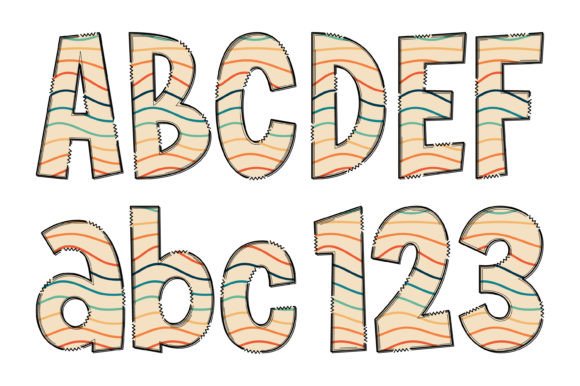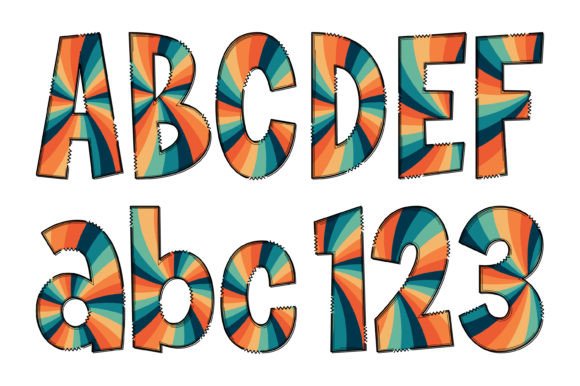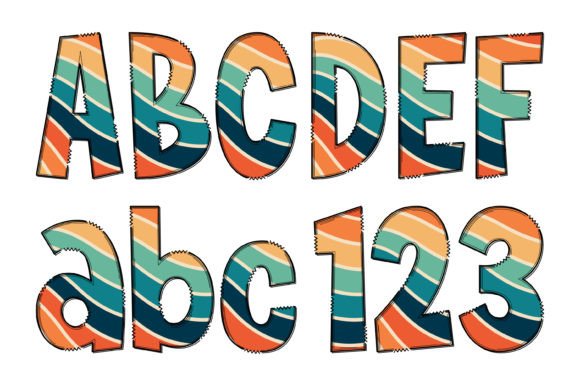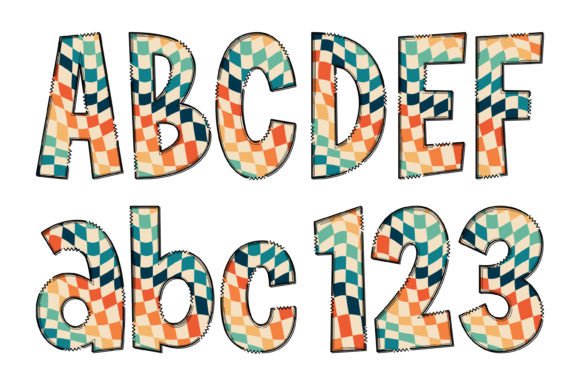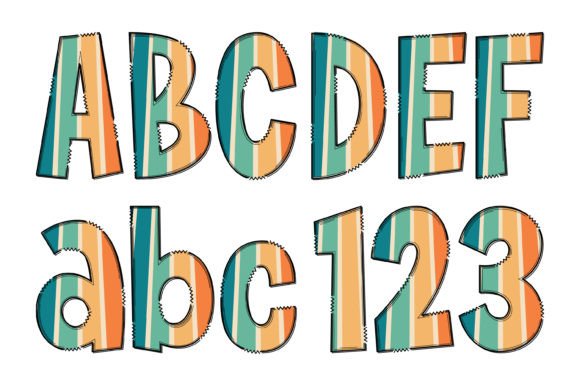
Introducing the Good Vibes Collection Font: A Delightful Expression of Positivity and Joy
In the world of design, typography plays a crucial role in conveying emotions and setting the tone for a project. For designers and crafters looking to infuse their creations with a sense of happiness and positivity, the Good Vibes Collection Font is a perfect choice. This delightful color font collection radiates joy and playfulness, making it an excellent addition to any design endeavor.
The Design: A Playful and Whimsical Masterpiece
The Good Vibes Collection Font boasts a playful and whimsical design that is sure to captivate audiences of all ages. Each letter is meticulously crafted with vibrant colors and intricate patterns, creating a visual feast for the eyes. The font’s design is carefully balanced to ensure that it is both fun and legible, making it perfect for a wide range of applications, from digital graphics to print materials.
Key Features of the Good Vibes Collection Font
- Delightful Color Scheme: The font features a vibrant and uplifting color palette that is sure to grab attention and evoke feelings of happiness.
- Intricate Patterns: Each letter is adorned with intricate patterns that add an extra layer of visual interest and depth to the design.
- Playful and Whimsical Design: The font’s playful design makes it perfect for projects that require a lighthearted and cheerful touch.
- Highly Legible: Despite its decorative nature, the Good Vibes Collection Font remains highly legible, making it suitable for use in a variety of contexts.
Uses for the Good Vibes Collection Font
The Good Vibes Collection Font is incredibly versatile and can be used in a wide range of design projects, including:
- Digital Graphics: Use the font to create eye-catching social media graphics, blog headers, and website titles that are sure to leave a lasting impression.
- Print Materials: Add a touch of personality to your print materials, such as brochures, flyers, and posters, with this delightful font.
- Crafting Projects: The Good Vibes Collection Font is perfect for crafters who want to add a personal touch to their projects, such as handmade cards, scrapbooking, and DIY decorations.
- Branding and Packaging: Use the font to create unique and memorable branding and packaging designs that reflect your brand’s personality and values.
Tips for Using the Good Vibes Collection Font
To get the most out of the Good Vibes Collection Font, consider the following tips:
- Experiment with Color Combinations: Don’t be afraid to experiment with different color combinations to find the perfect palette for your project.
- Mix and Match Fonts: Combine the Good Vibes Collection Font with other fonts to create visually interesting and dynamic designs.
- Use it Sparingly: While the font is certainly attention-grabbing, it can be overwhelming if used excessively. Use it sparingly to create emphasis and add visual interest to your design.
The Good Vibes Collection Font is a delightful and uplifting font that is sure to bring a sense of happiness and positivity to any project. With its playful and whimsical design, vibrant colors, and intricate patterns, it’s the perfect choice for designers and crafters looking to add a touch of personality to their creations. Whether you’re working on a digital graphic, print material, or crafting project, this font is sure to uplift and inspire your designs.
So why not spread some good vibes and give the Good Vibes Collection Font a try? With its versatility, legibility, and delightful design, it’s sure to become a favorite in your font collection.